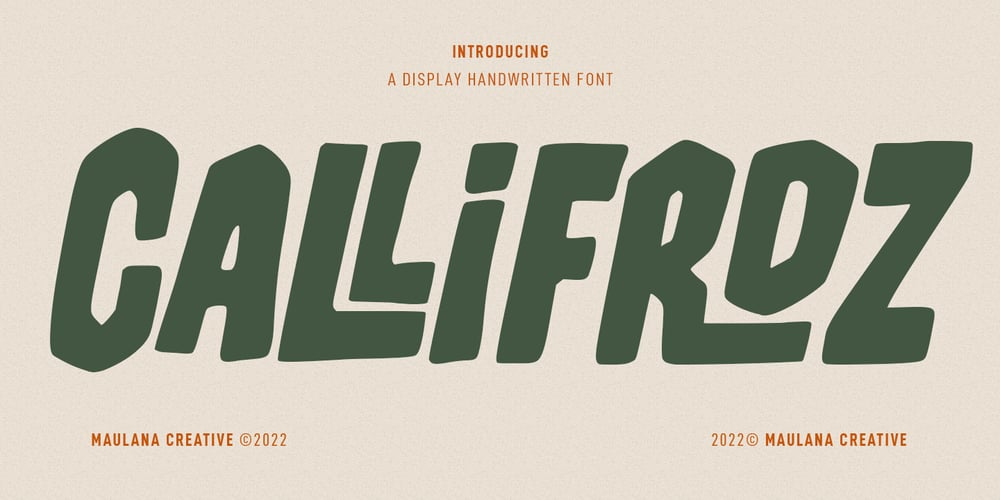
Callifroz Font Family was designed by Gilang Maulana and published by Maulana Creative. Callifroz contains 1 styles and family package options. Callifroz is a fancy handwritten script font. With medium contrast stroke, fun character with a bit of ligatures and alternates. To give you an extra creative work. Callifroz font support multilingual more than 100+ language. This font is good for logo design, Social media, Movie Titles, Books Titles, a short text even a long text letter and good for your secondary text font with sans or serif. Make a stunning work with Callifroz font. Cheers, Maulana Creative